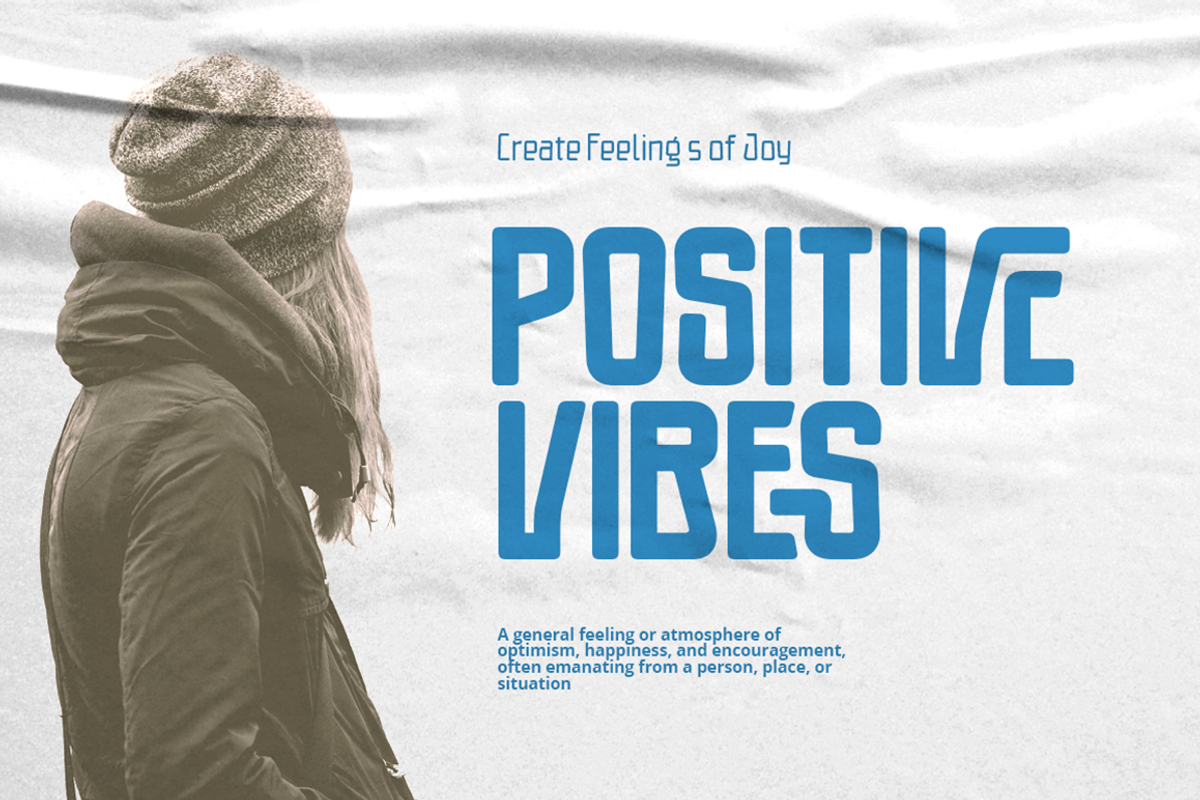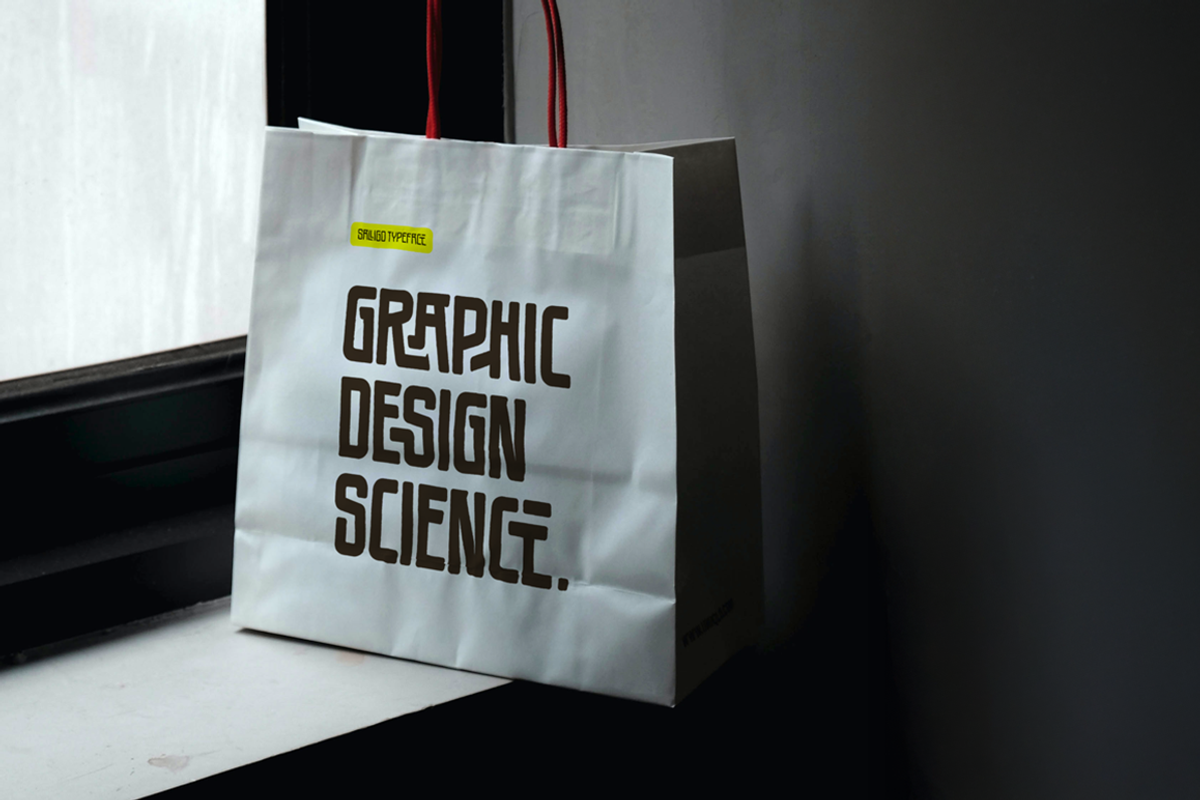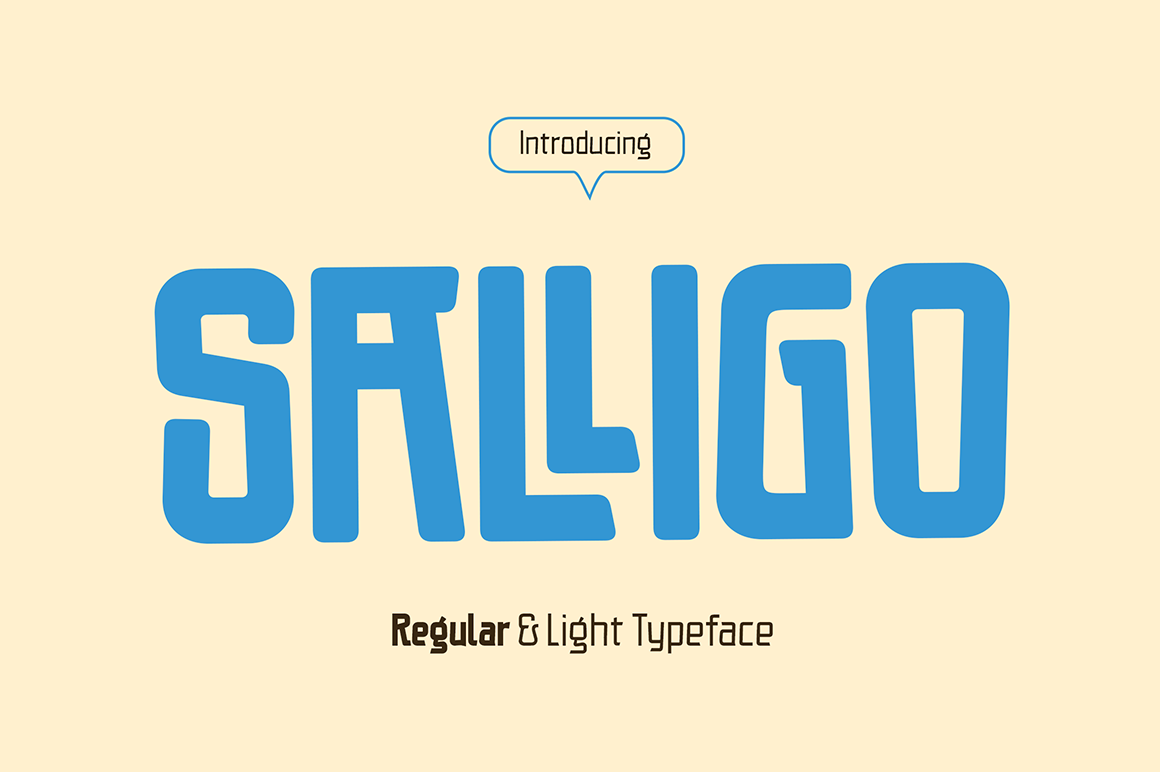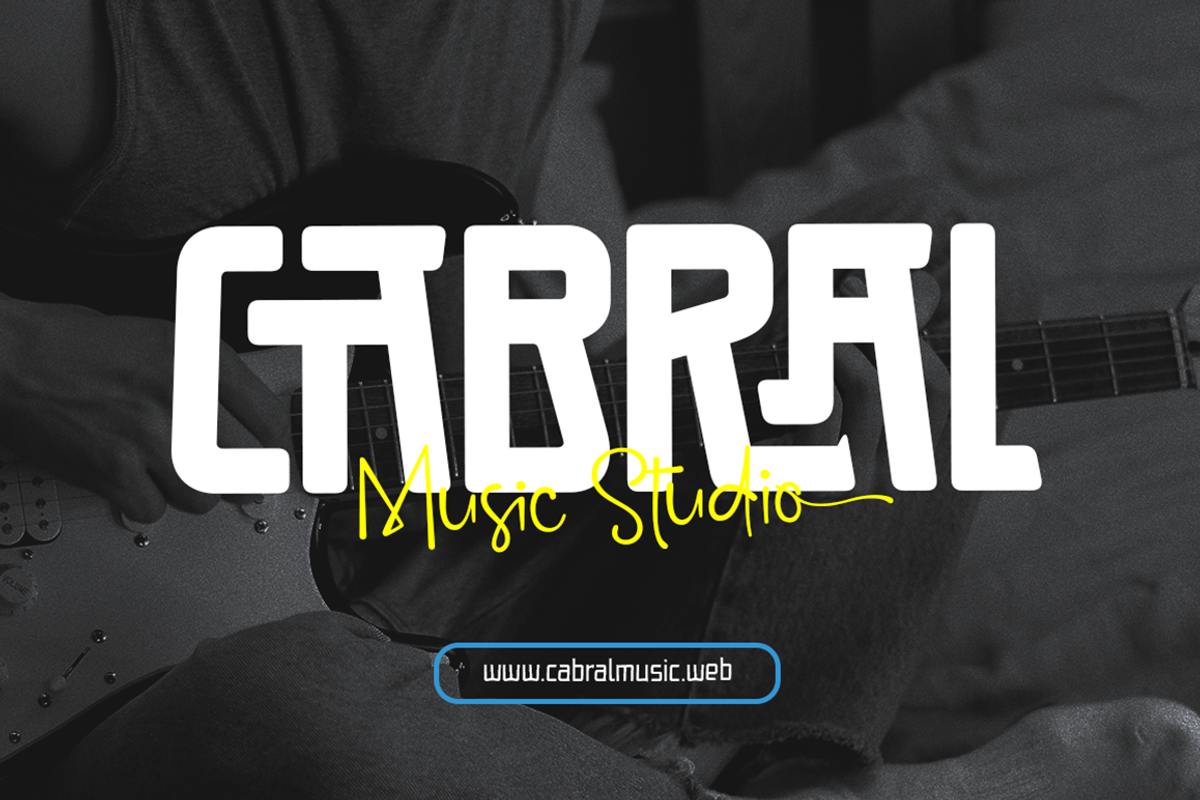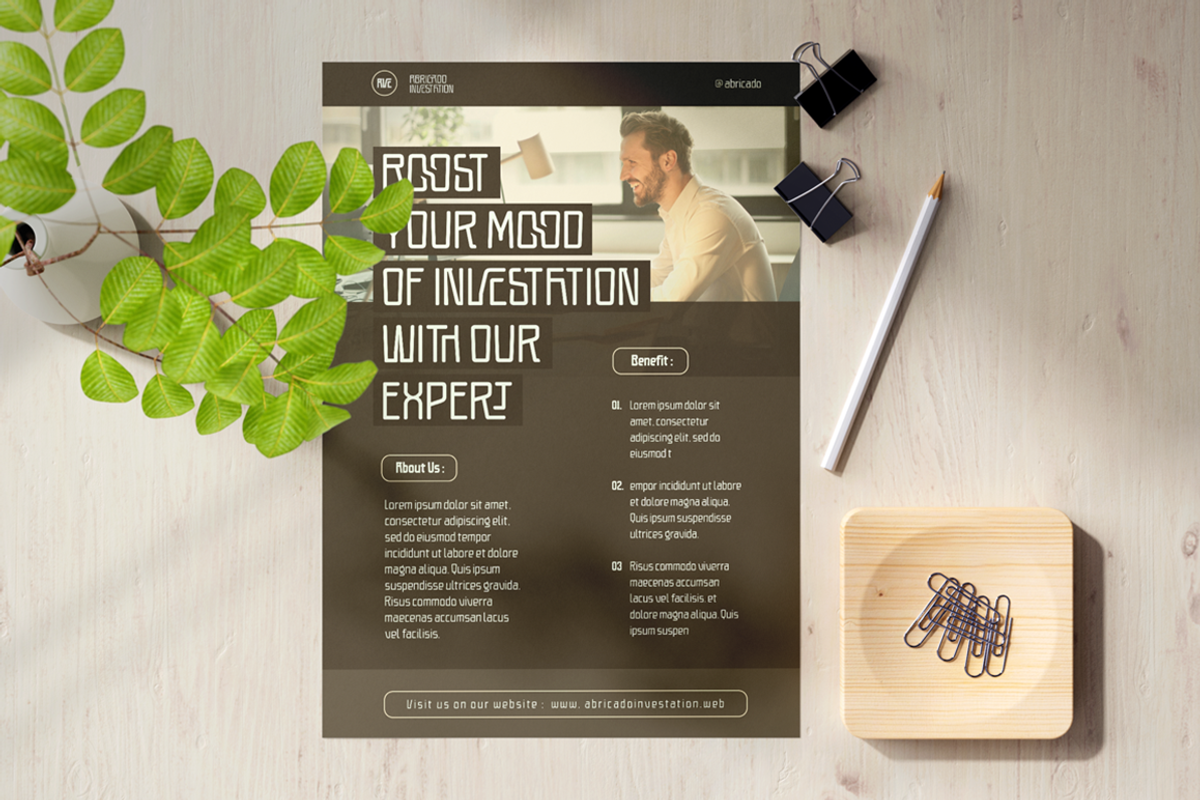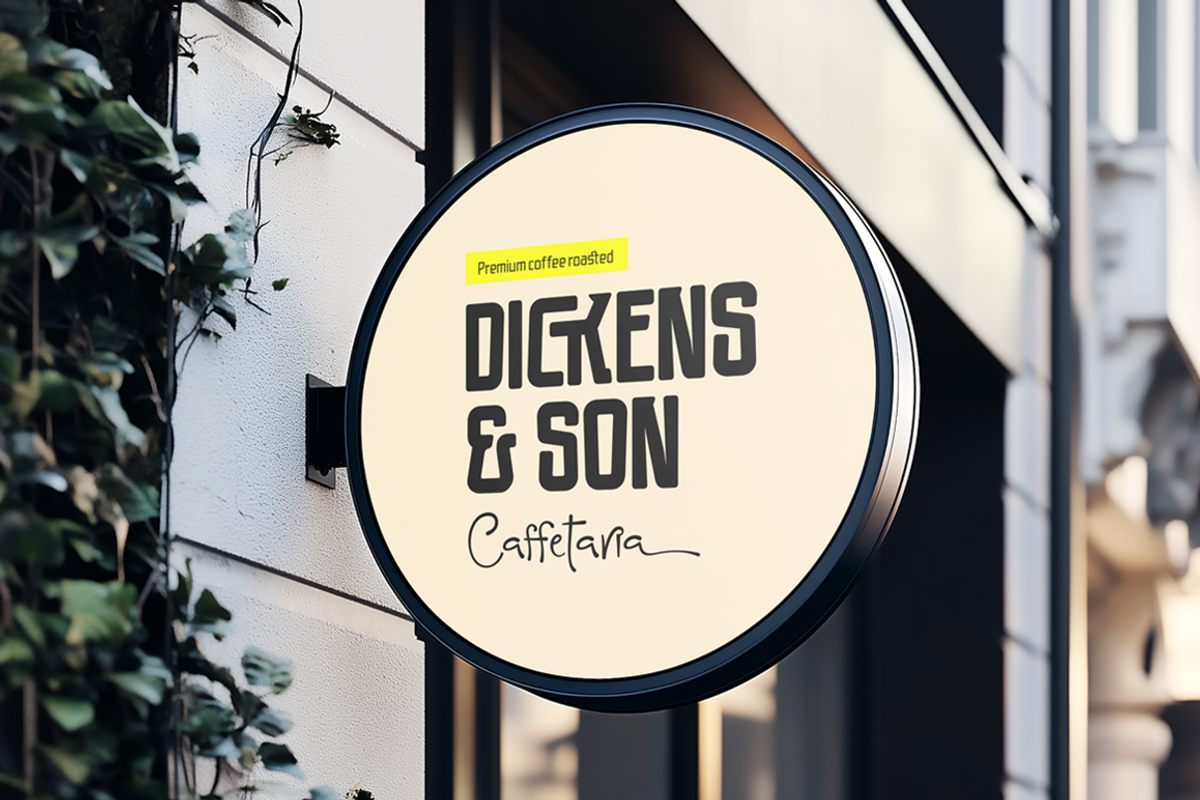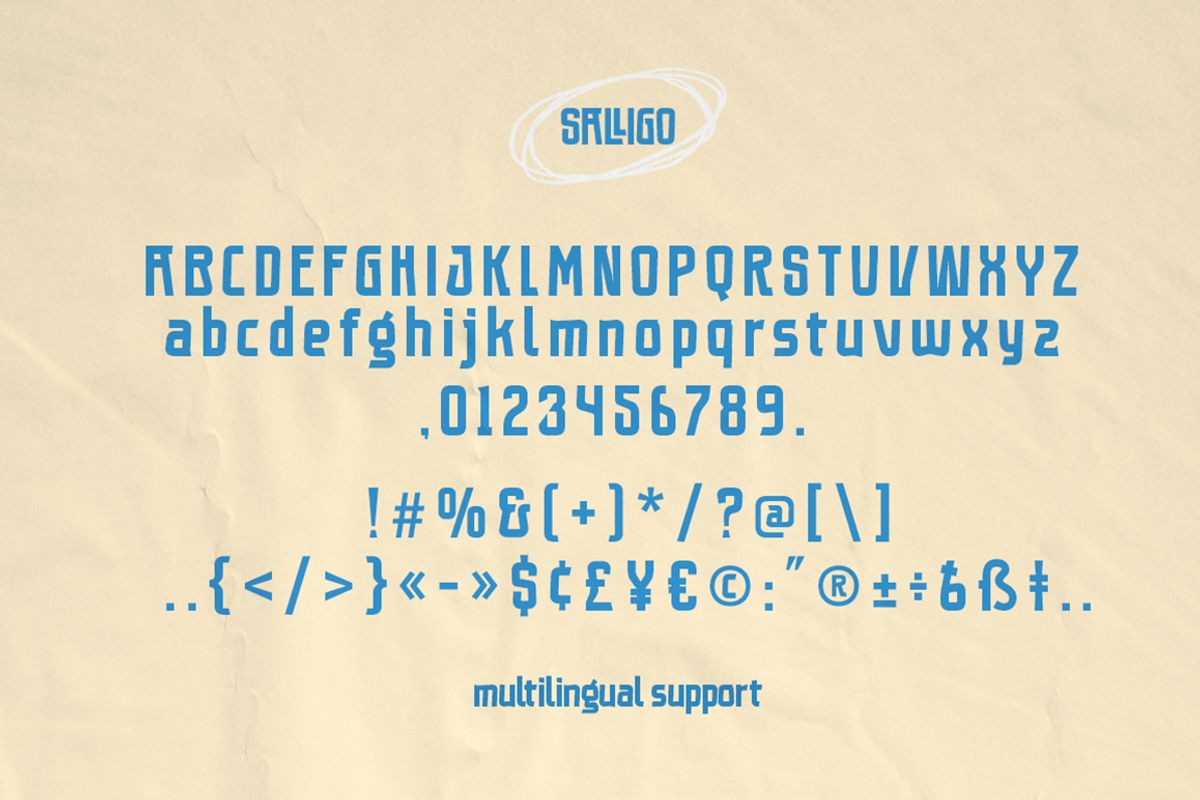
Salligo - Elegant Sans Serif Font
Salligo is a modern and elegant sans serif font that blends simplicity with sophistication. Its clean lines and contemporary structure make it a versatile choice for both headers and body text. Designed with precision and balance, Salligo offers two main weights — Regular and Light — each complemented with their own unique styles. This font is perfect for editorial use, branding, websites, and any design project that demands a sleek and refined typographic presence.
- Elegant Sans Serif Font
- Casual Design
- Creative Ligatures Pair
- Basic Latin Glyphs
- Currencies